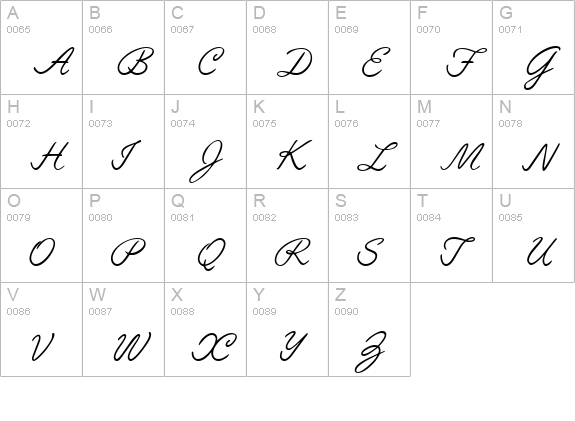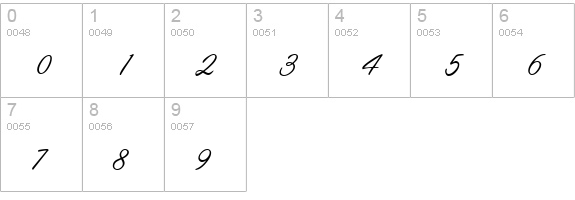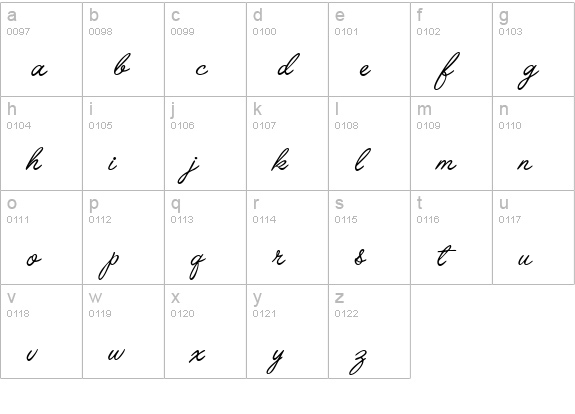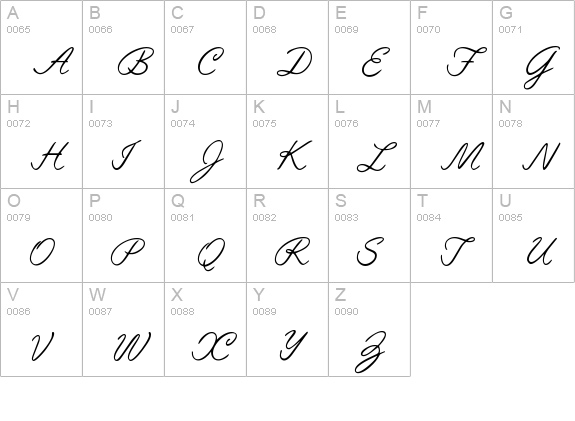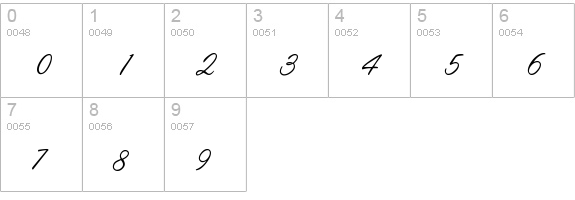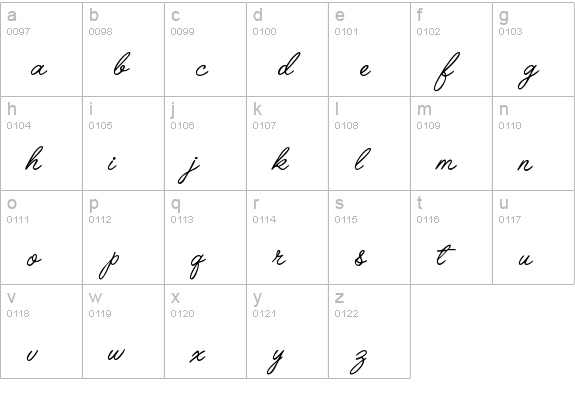
L691-Script-Regular Font Details
L691-Script-Regular is the standard, neutral variant in the L691 typeface family \xE2\x80\x94 well suited to general body text, paragraphs, and standard typographic work.
L691-Script-Regular is a beautifully crafted font that exudes elegance and sophistication. With its flowing lines and stylish curves, this font is perfect for adding a touch of charm to your design projects. Whether you're creating invitations, greeting cards, or signage, L691-Script-Regular will elevate your work to the next level. What makes this font even more appealing is that it is free to download at FontsMarket.com. Yes, you read that right - this stunning font is available for you to use in your projects without any cost. So, go ahead and enhance your designs with the timeless beauty of L691-Script-Regular.